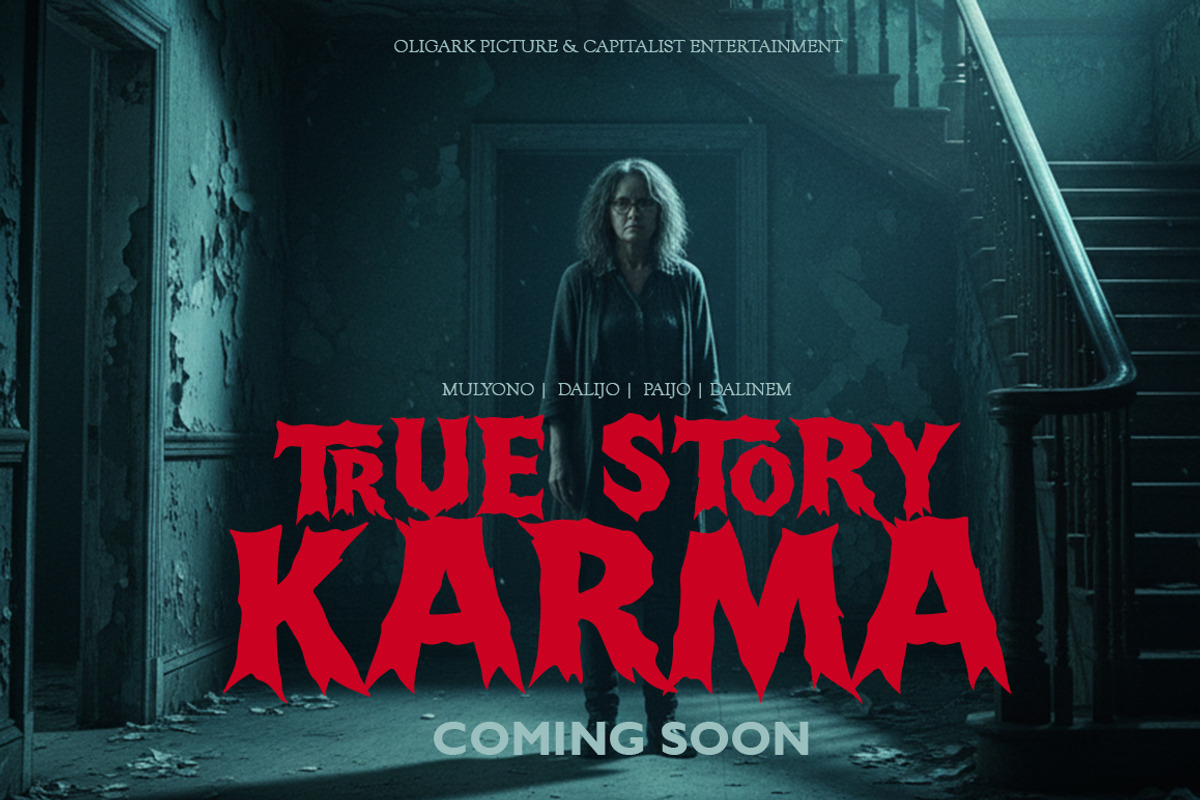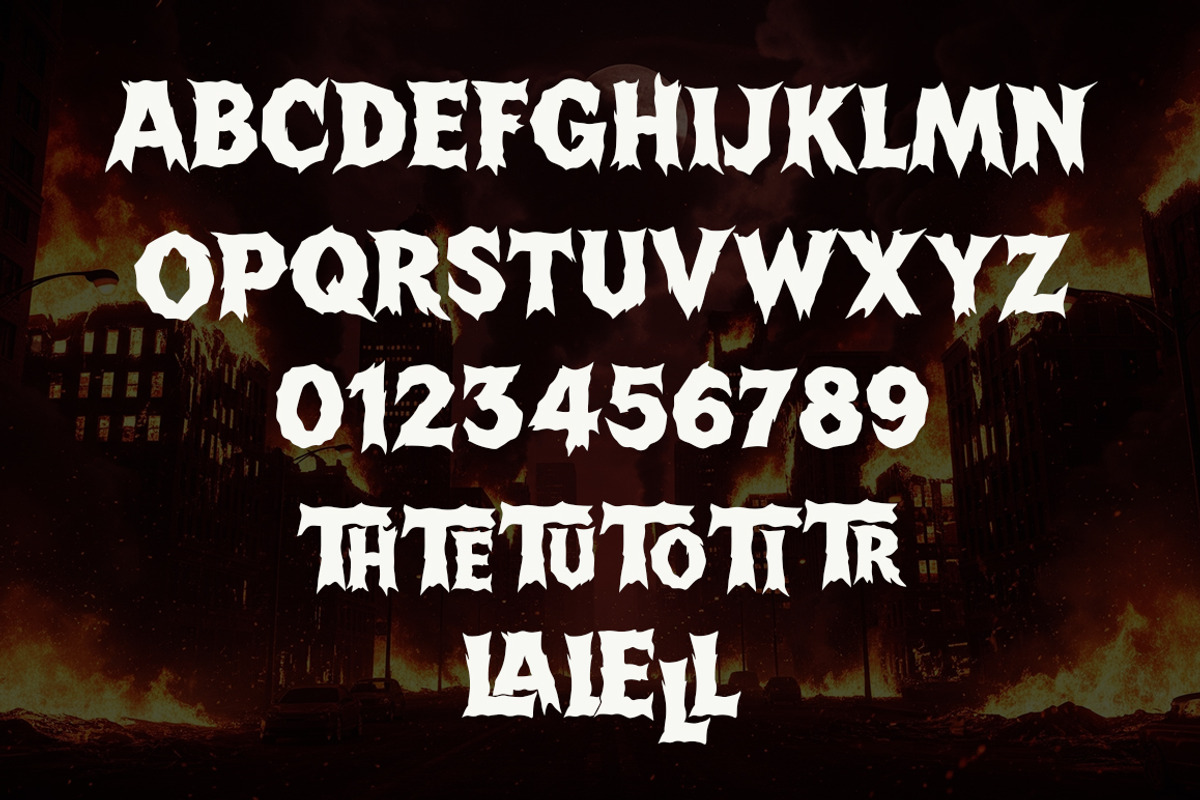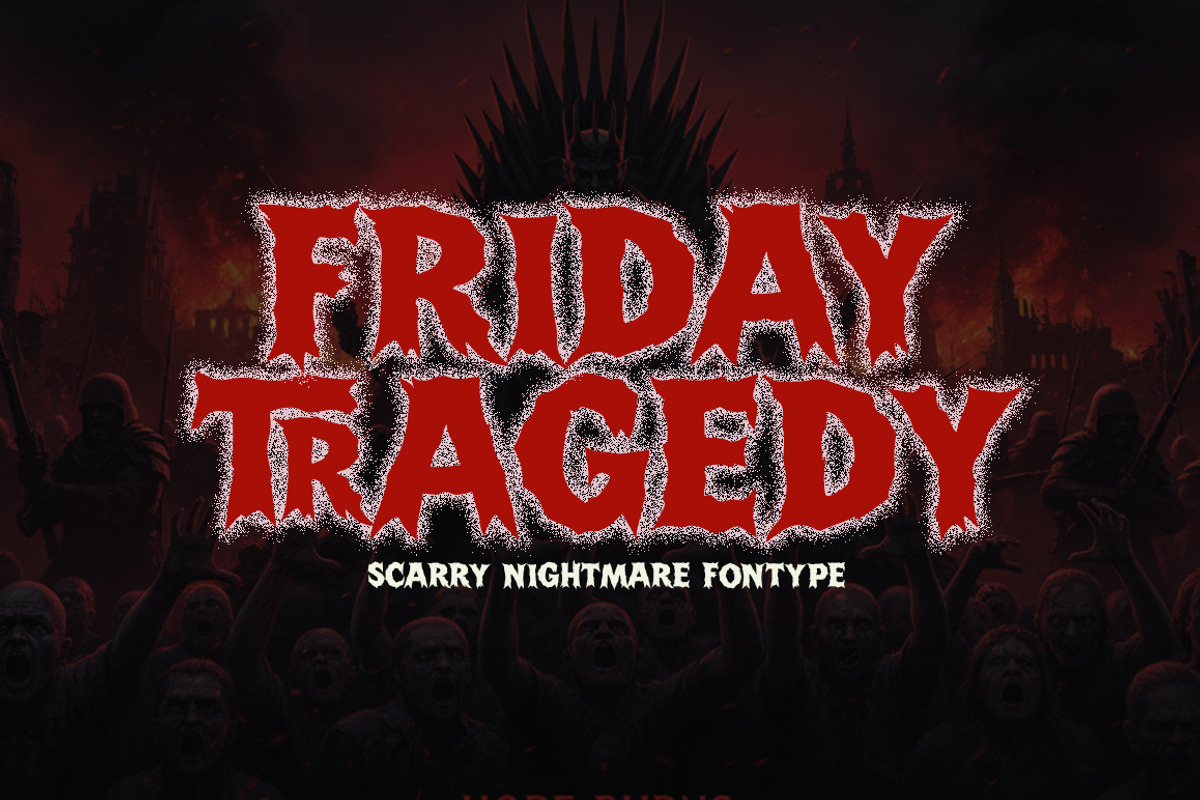
Friday Tragedy
Friday Tragedy drips with blood and terror. This hand-drawn horror font is perfect for posters, film covers, and spooky social media content. Every word feels like the final scene of a nightmare.